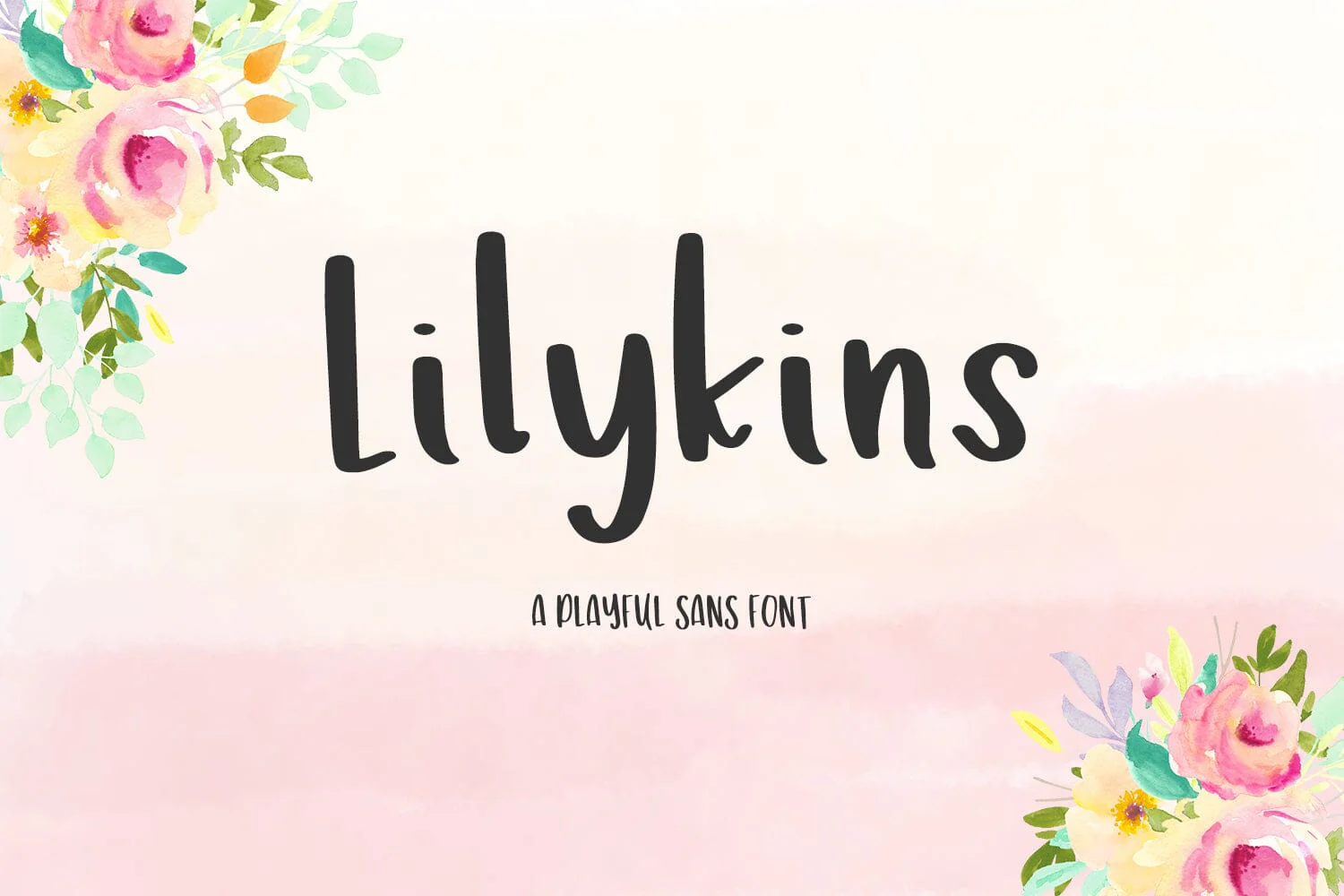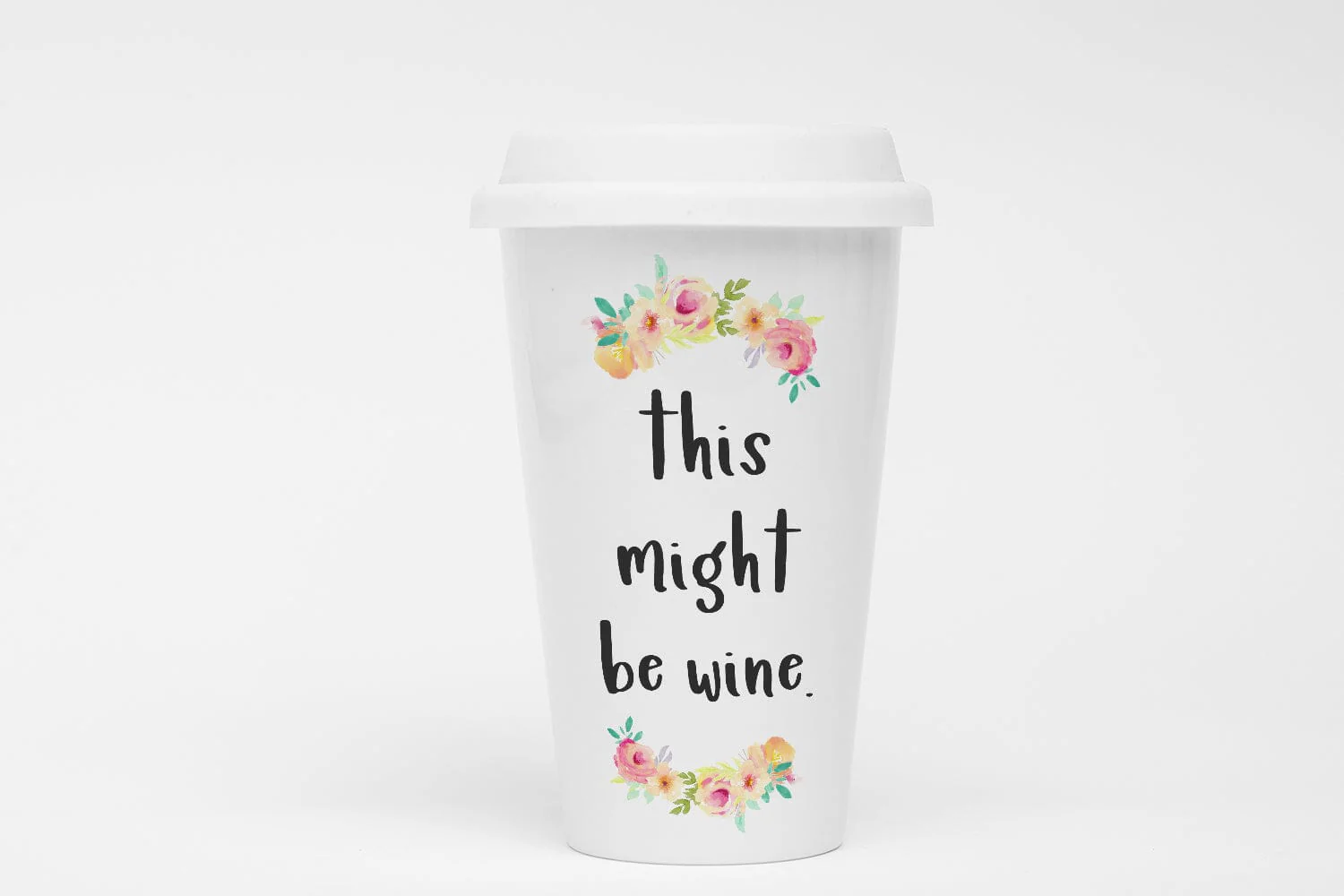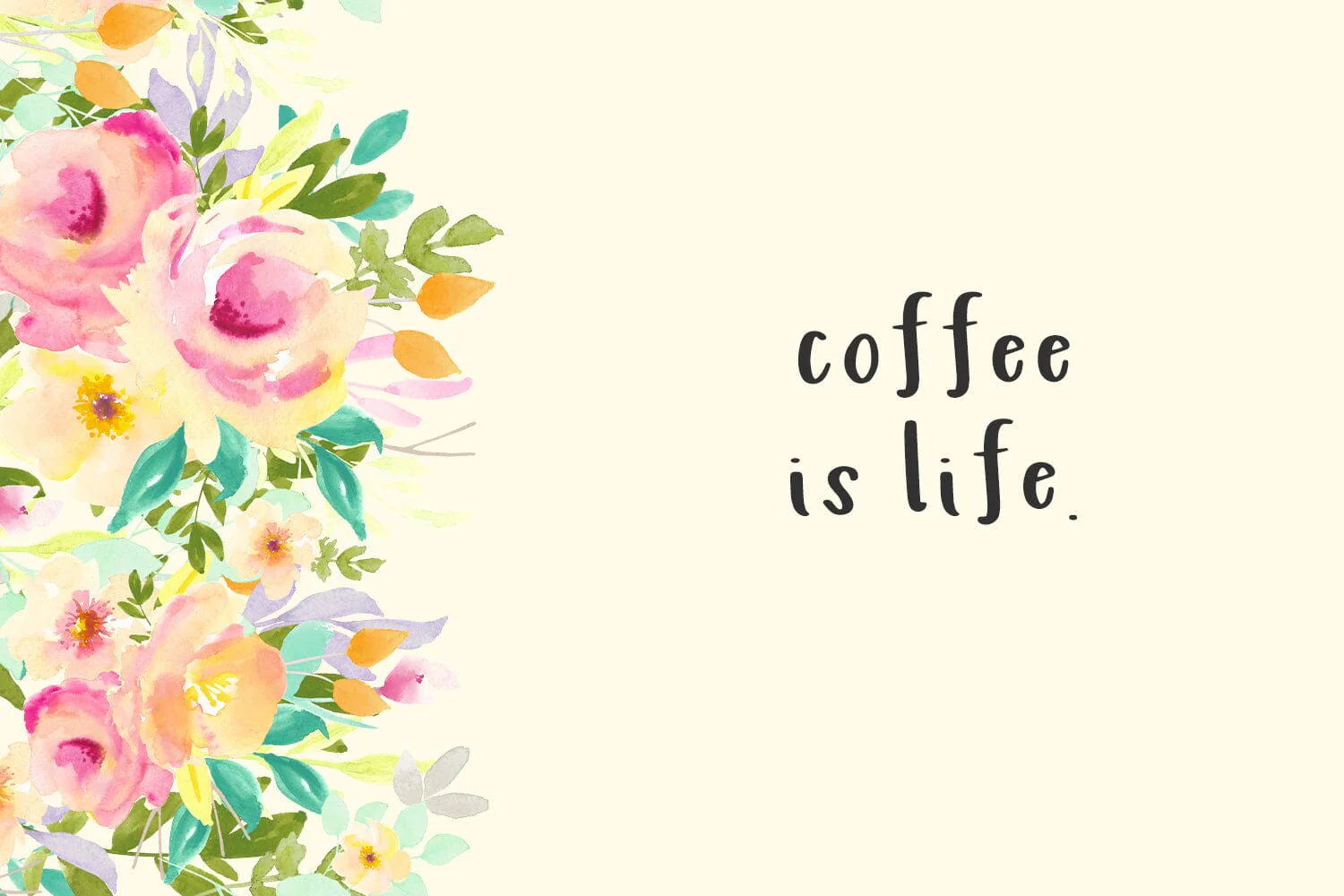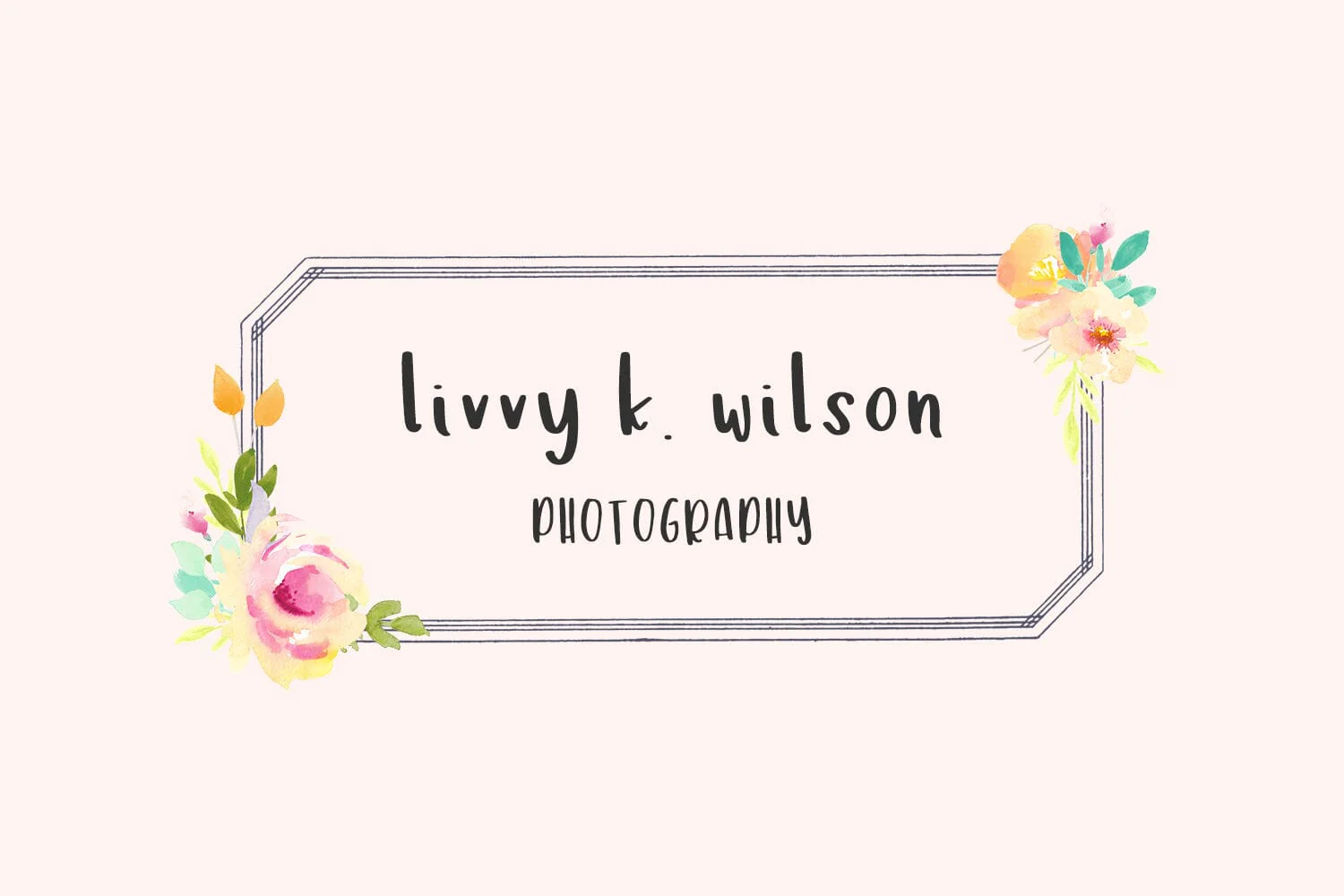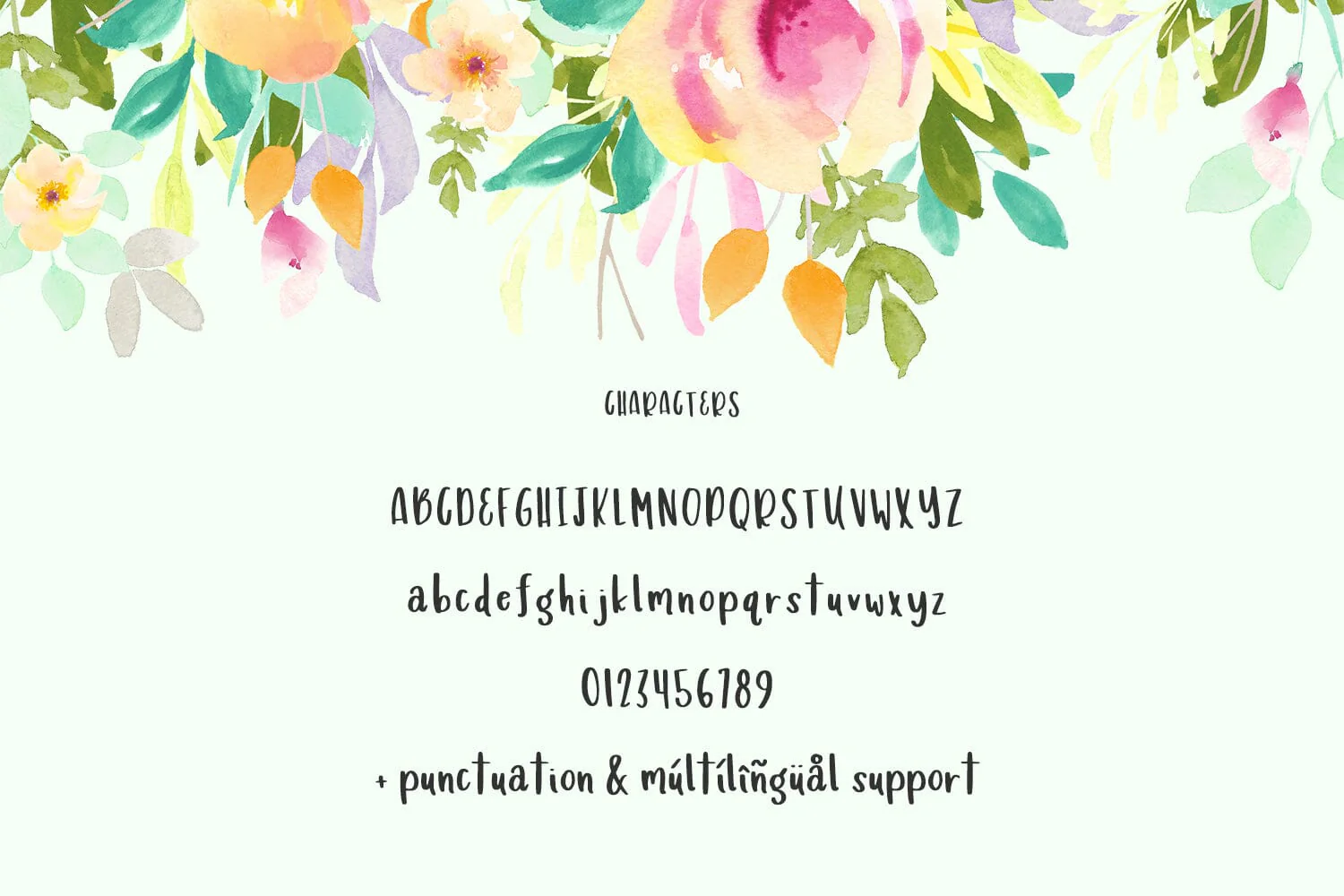
Lilykins Playful Sans Font
Lilykins is a super adorable, fun hand-lettered sans font.Ā Easy to read, easy to use -- unlimited possibilities for logos + branding, invitations, and products.Ā Lilykins features European language support!